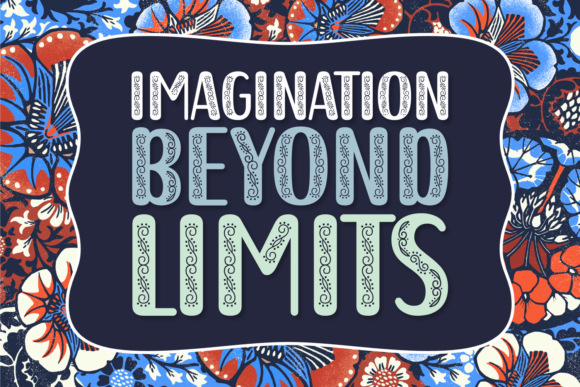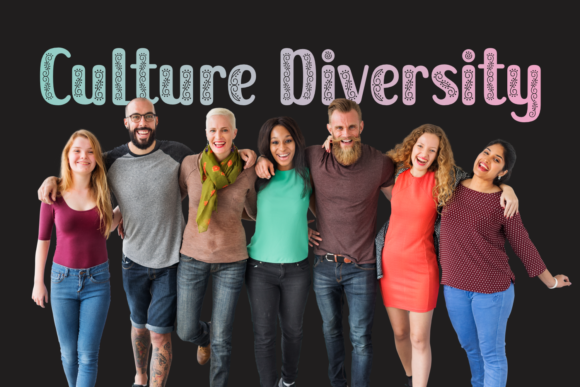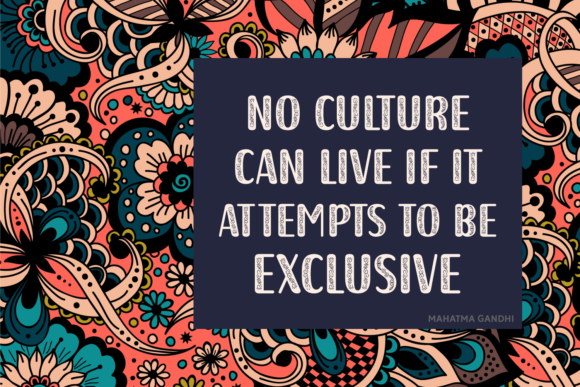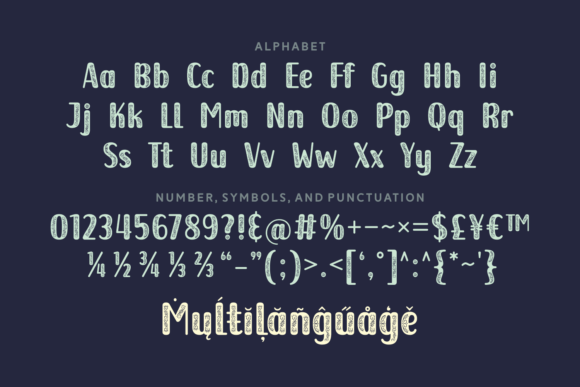
Introduction to Helo Vena Font
Helo Vena is a beautiful decorative font with an exciting floral pattern inside the characters.
This creative typeface is perfect for covers, posters, quotes, wedding designs, cards, anniversary invitations, t-shirts, art prints, etc .
Key Features of Helo Vena Font